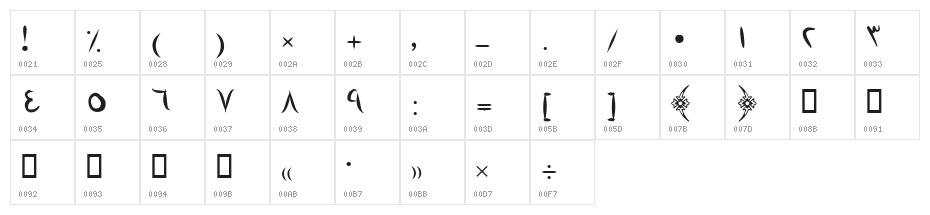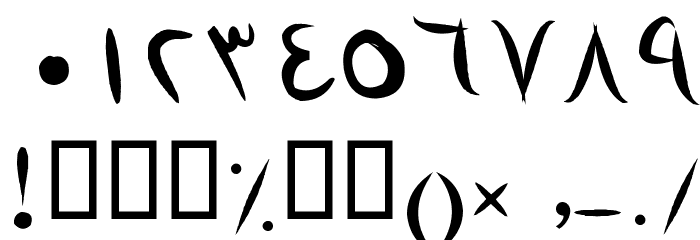
Lab Font
This font features a unique and artistic style, characterized by its flowing, cursive-like appearance. The letters exhibit a dynamic and expressive form, with varying stroke thickness that adds a sense of movement and elegance. The numbers and special characters maintain this fluidity, creating a cohesive and visually appealing typeface. The overall design is both modern and decorative, making it suitable for creative and artistic projects.
گالری فانت فارسی پژوهش آريانا - only compatible with Farsi and Arabic
| Use Case | Logos, Artistic projects, Invitations |
| Proposed Projects | Ideal for creative projects such as invitations, greeting cards, artistic branding, and decorative posters. |